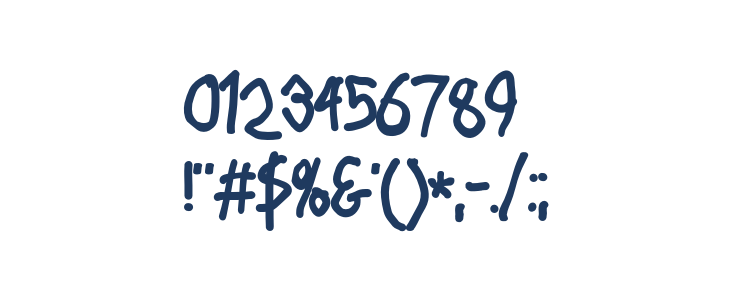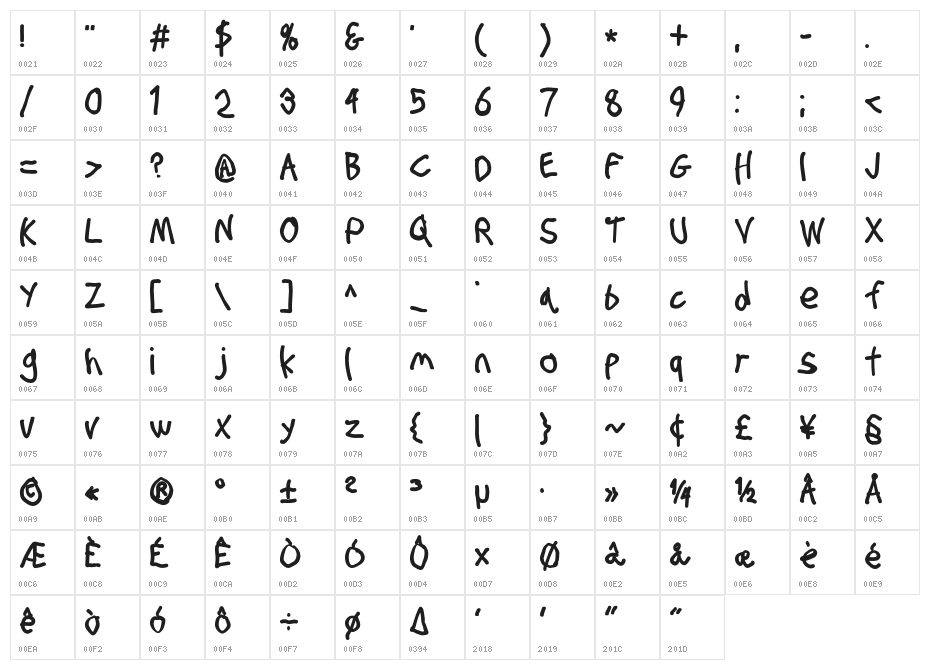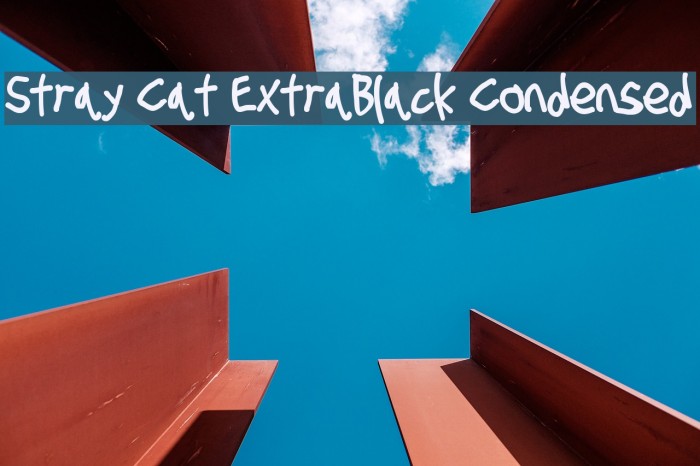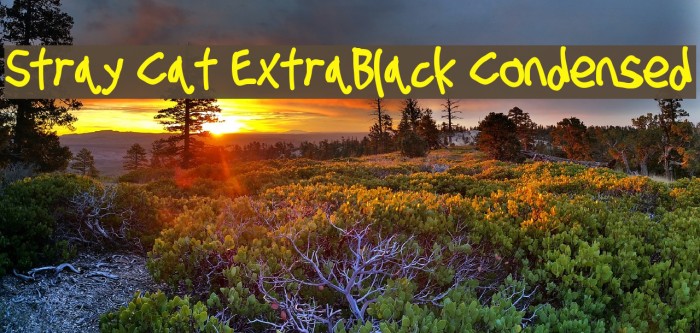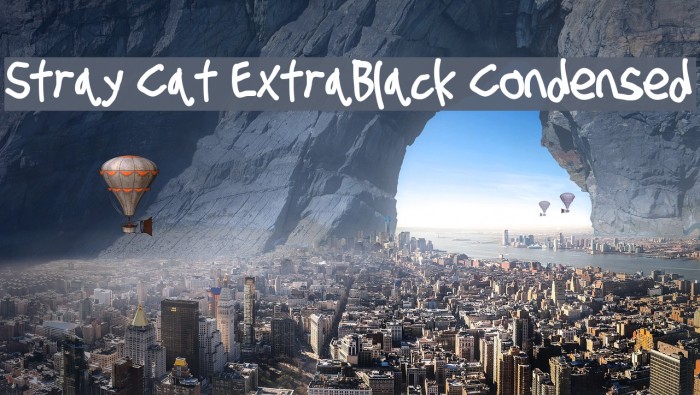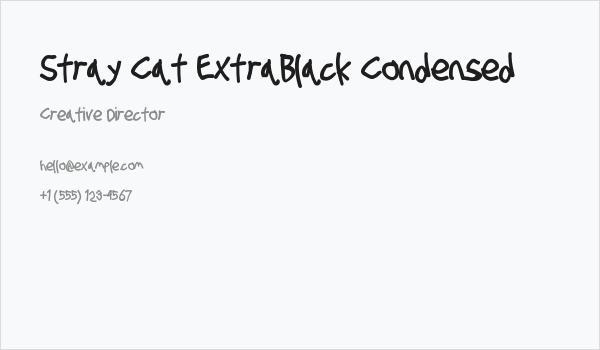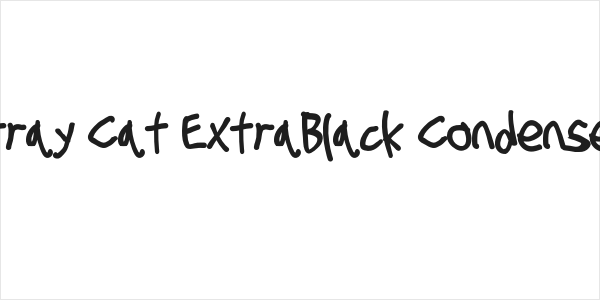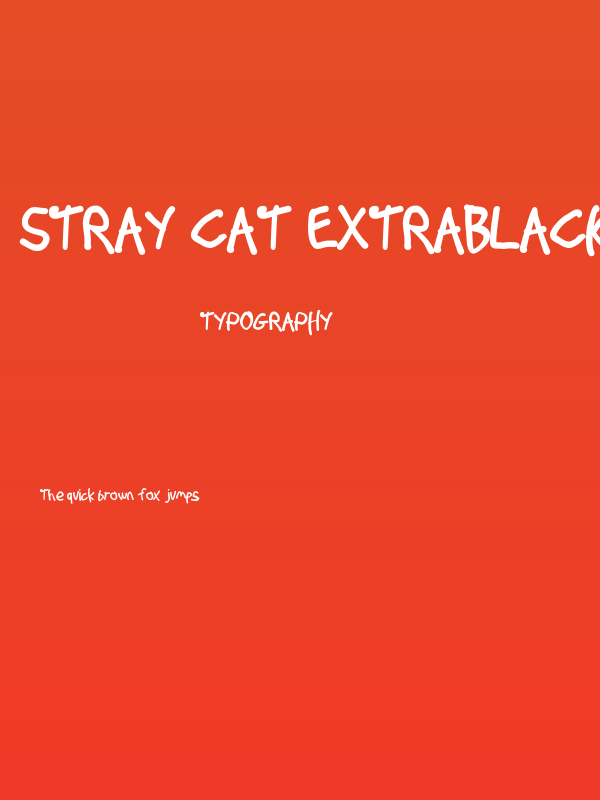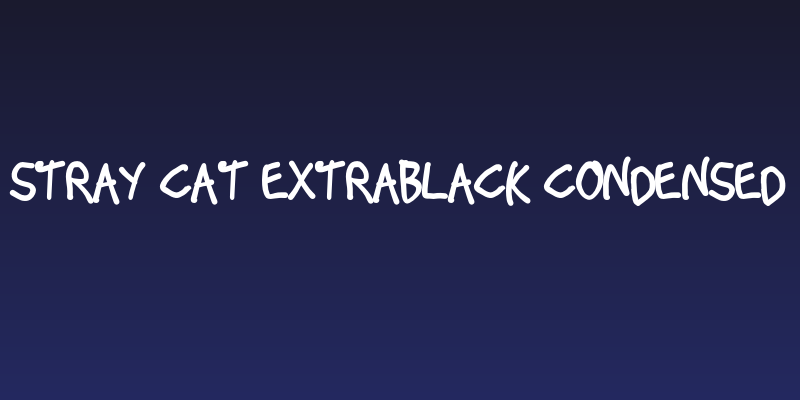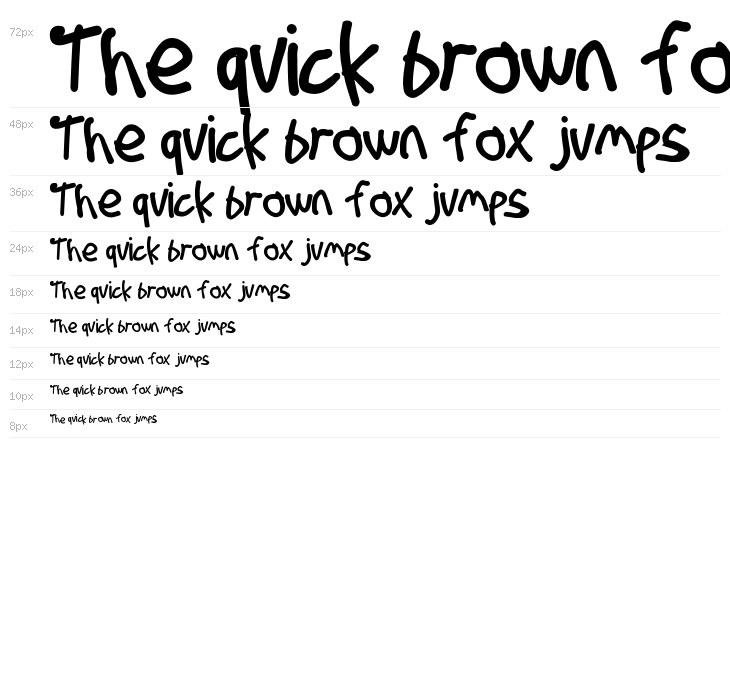
Stray Cat ExtraBlack Condensed Font
Stray Cat ExtraBlack Condensed Description
This font features a bold, handwritten style with a playful and informal appearance. The letters are thick and condensed, giving a strong visual impact. The strokes are uneven, adding a casual and dynamic feel. The uppercase and lowercase letters maintain a consistent style, with rounded edges and a slightly slanted orientation. Numbers and special characters follow the same aesthetic, ensuring uniformity across all glyphs. The overall look is energetic and expressive, making it suitable for creative and informal projects.
| Proposed Projects | Ideal for children's books, greeting cards, posters, and creative branding projects. |